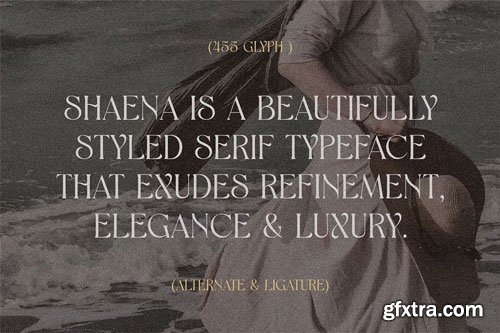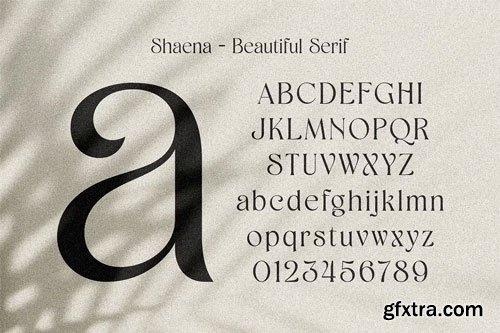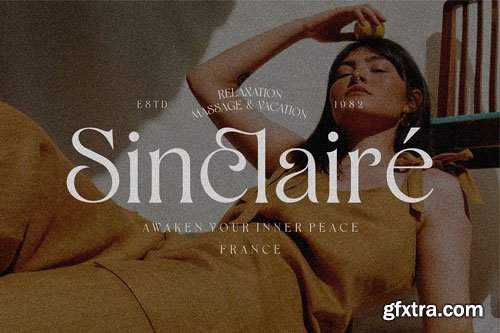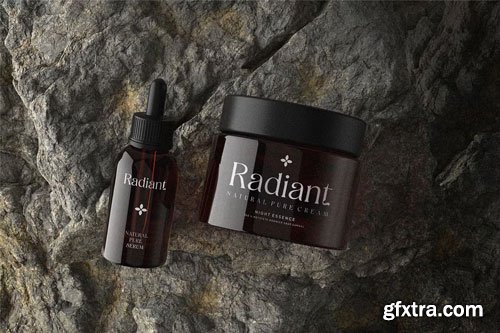
CreativeMarket - Shaena - Beautiful Serif
Shaena is a beautifully styled serif typeface that exudes refinement, elegance and luxury. This font exhibits organic curves that blend seamlessly into sharp serifs. This font is suitable for unique desired logos and branding, fashion designs, wedding, poster designs and many more.